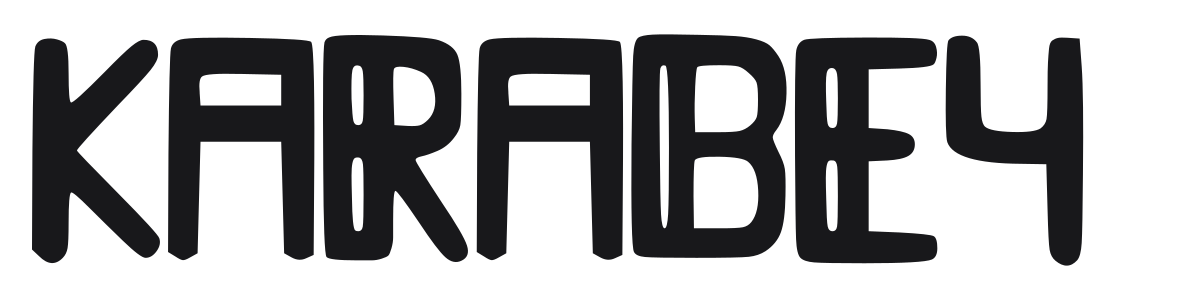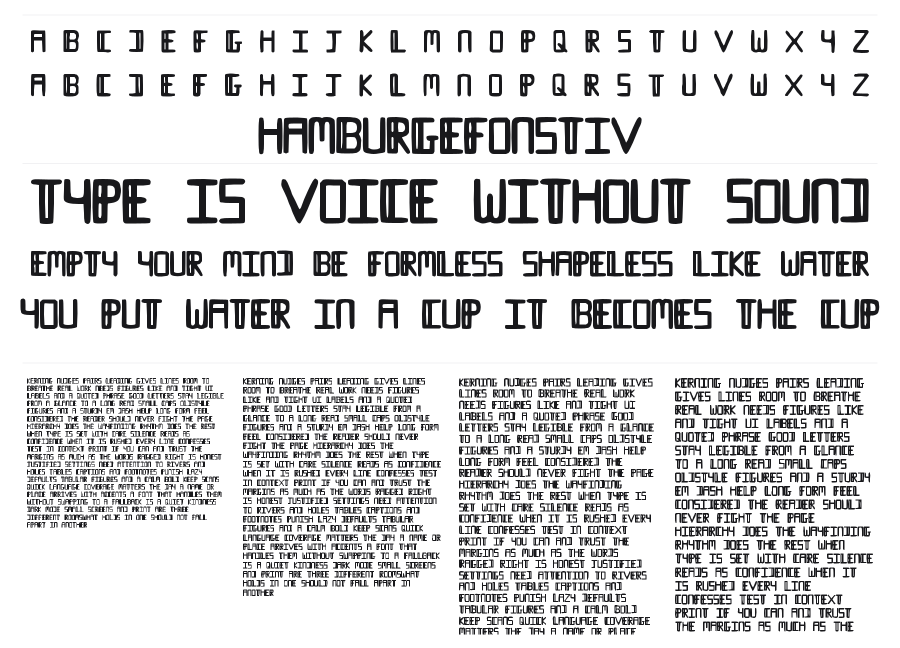
Karabey
Karabey is a heavy geometric display face built from thick, uniform strokes with rounded inner corners and flat terminals. The blocky, almost modular construction gives it a retro-industrial character that sits somewhere between 1970s constructivism and bold signage lettering. It works at large sizes where its dense, unyielding weight can make a real impact.